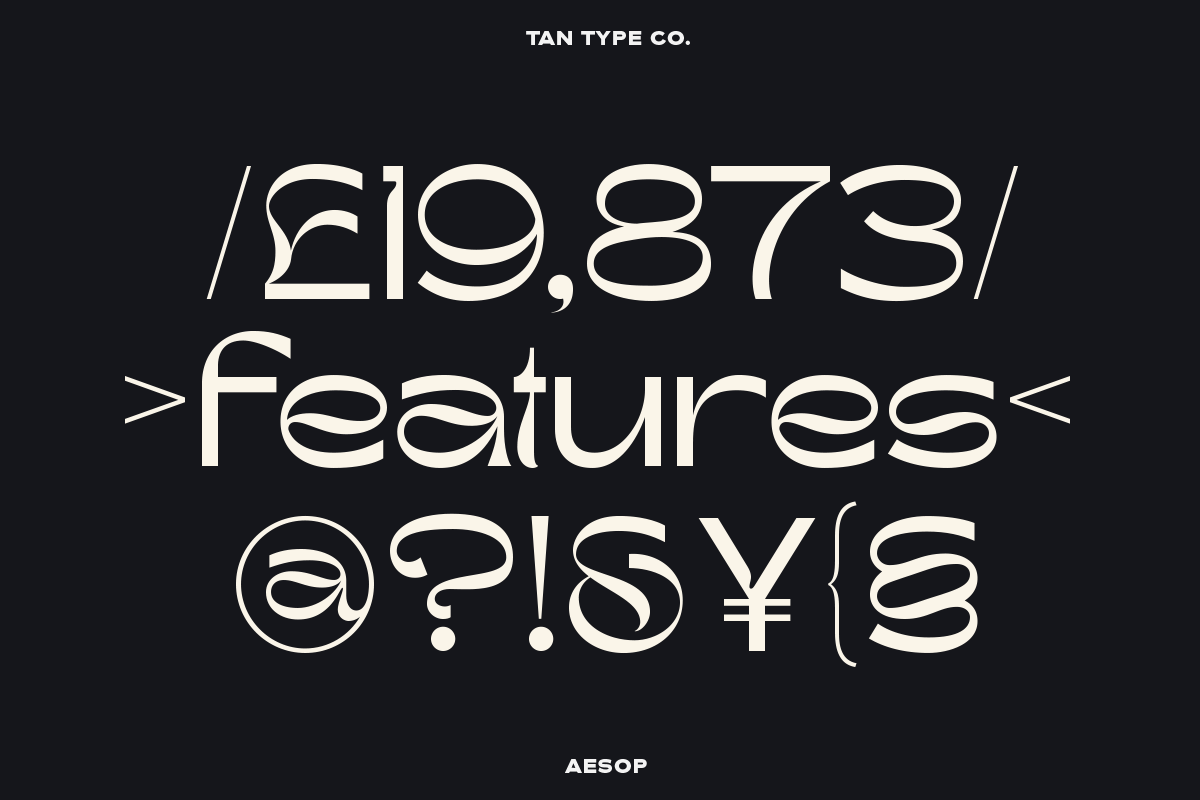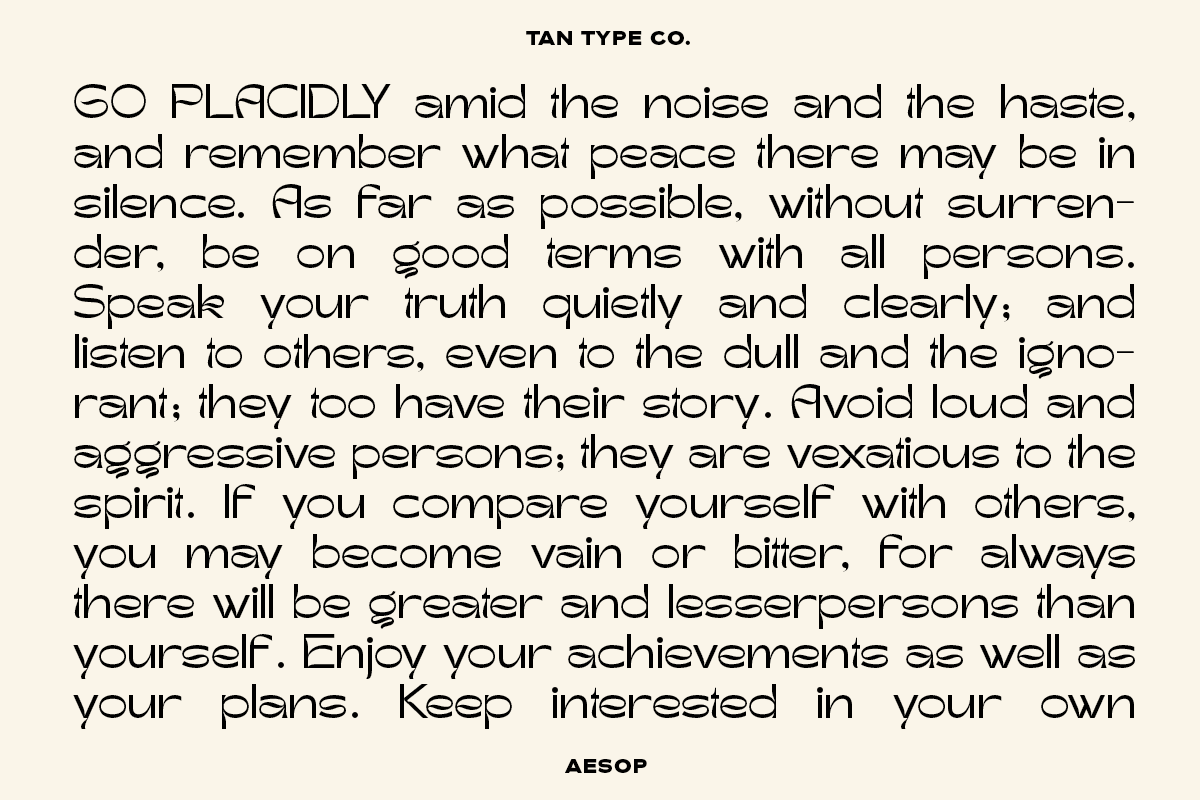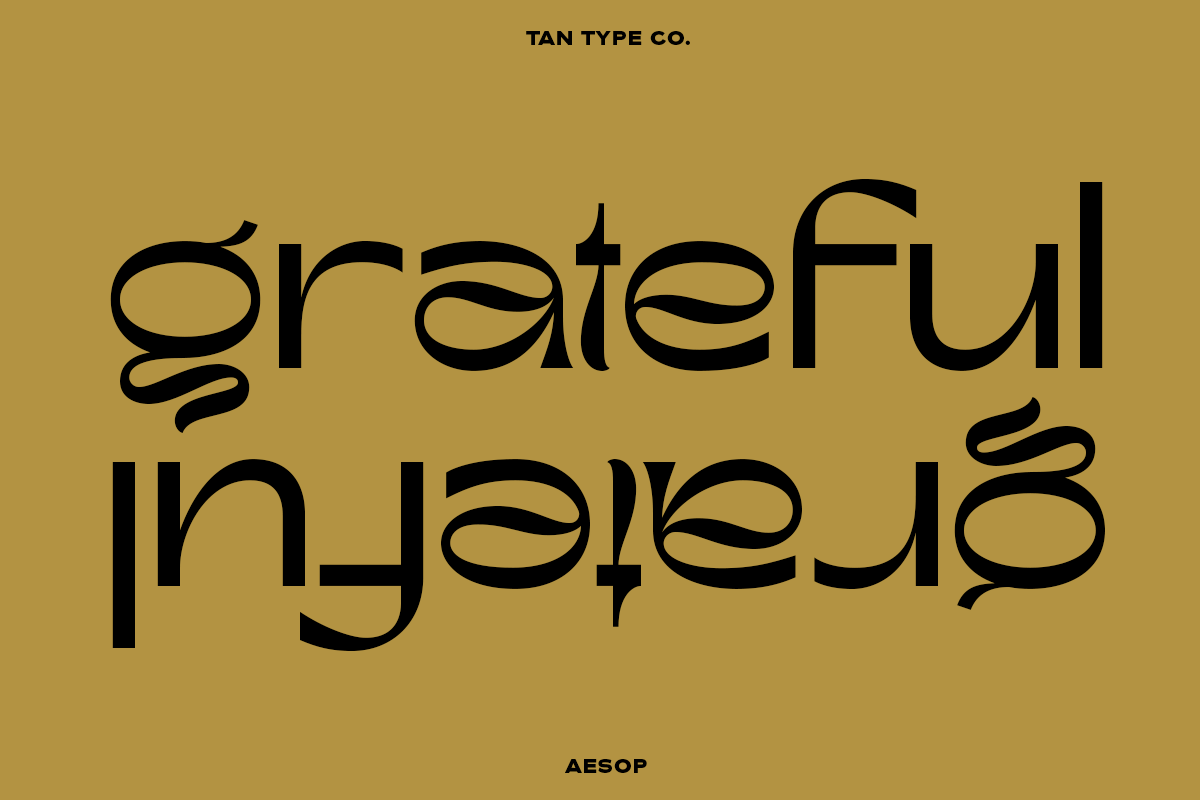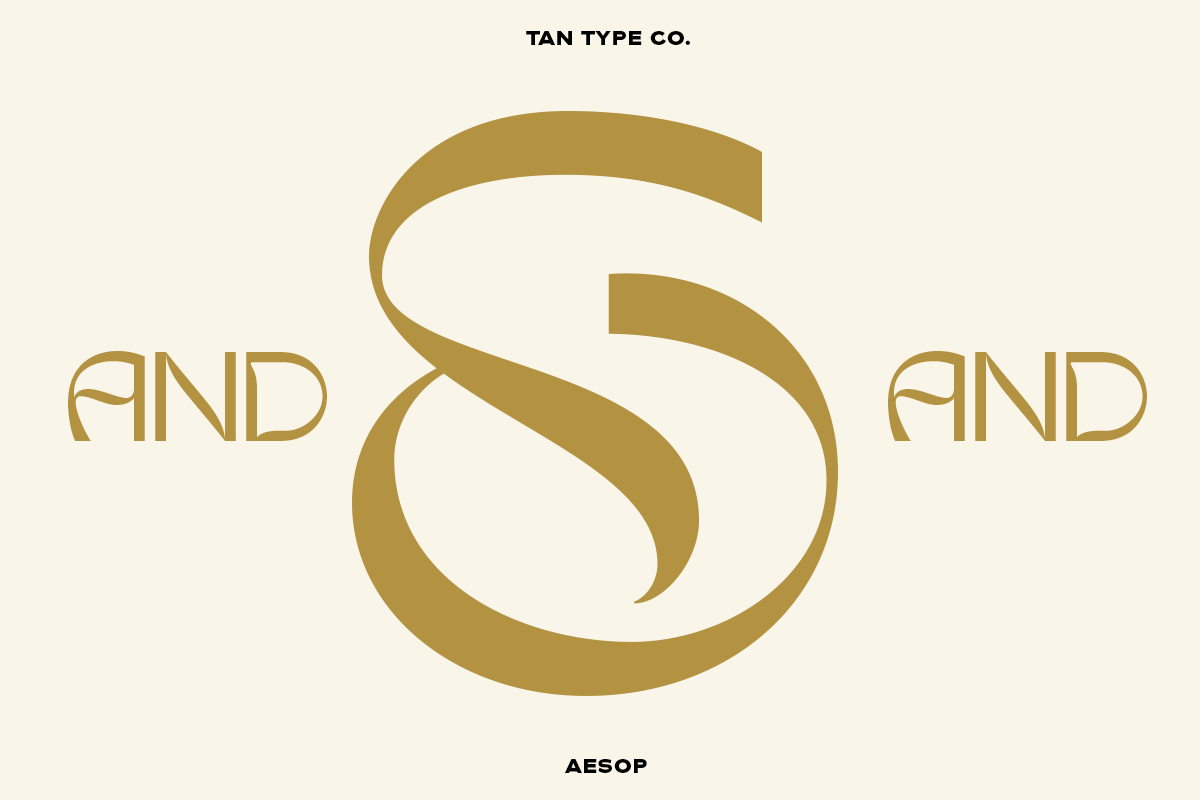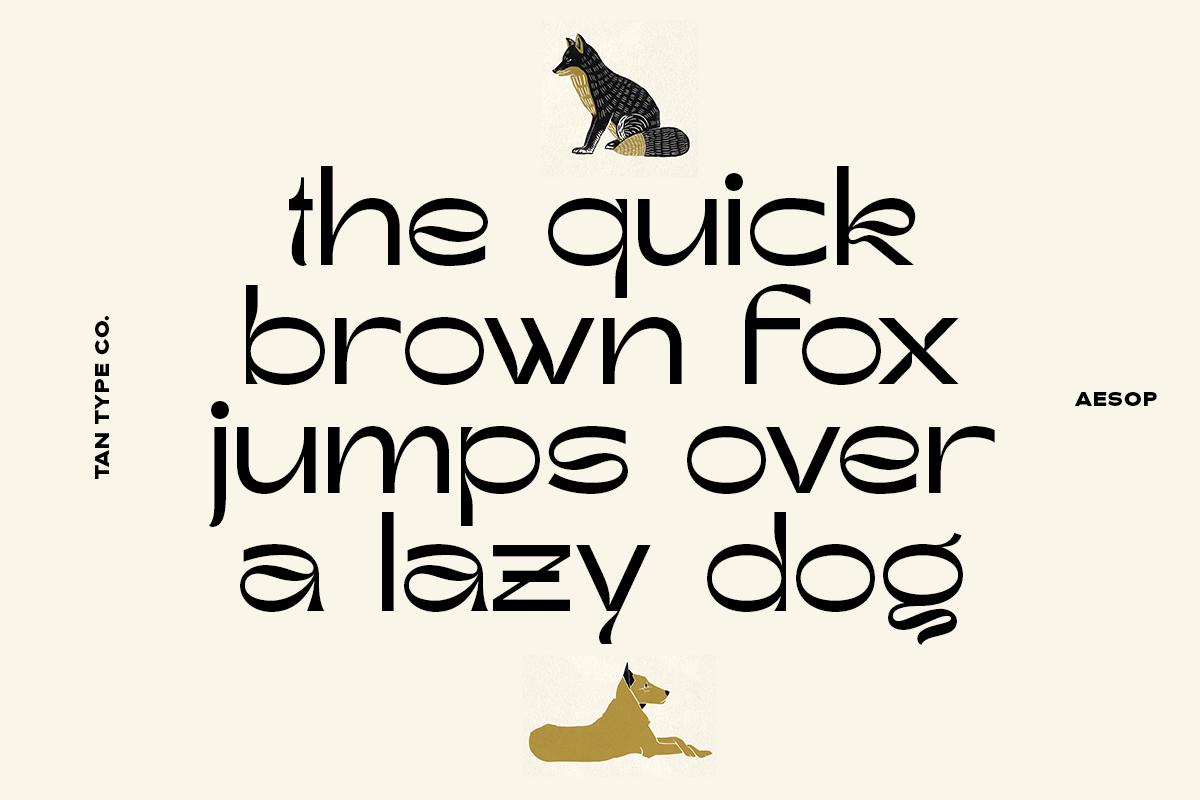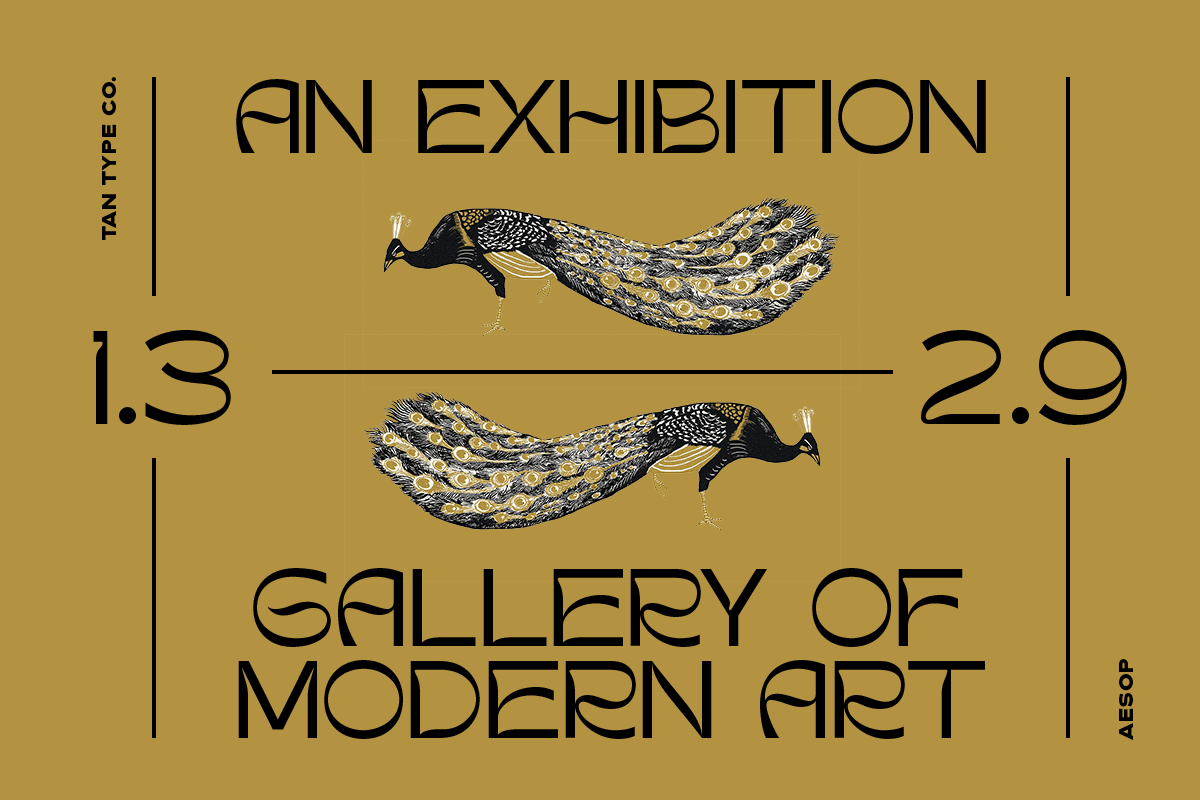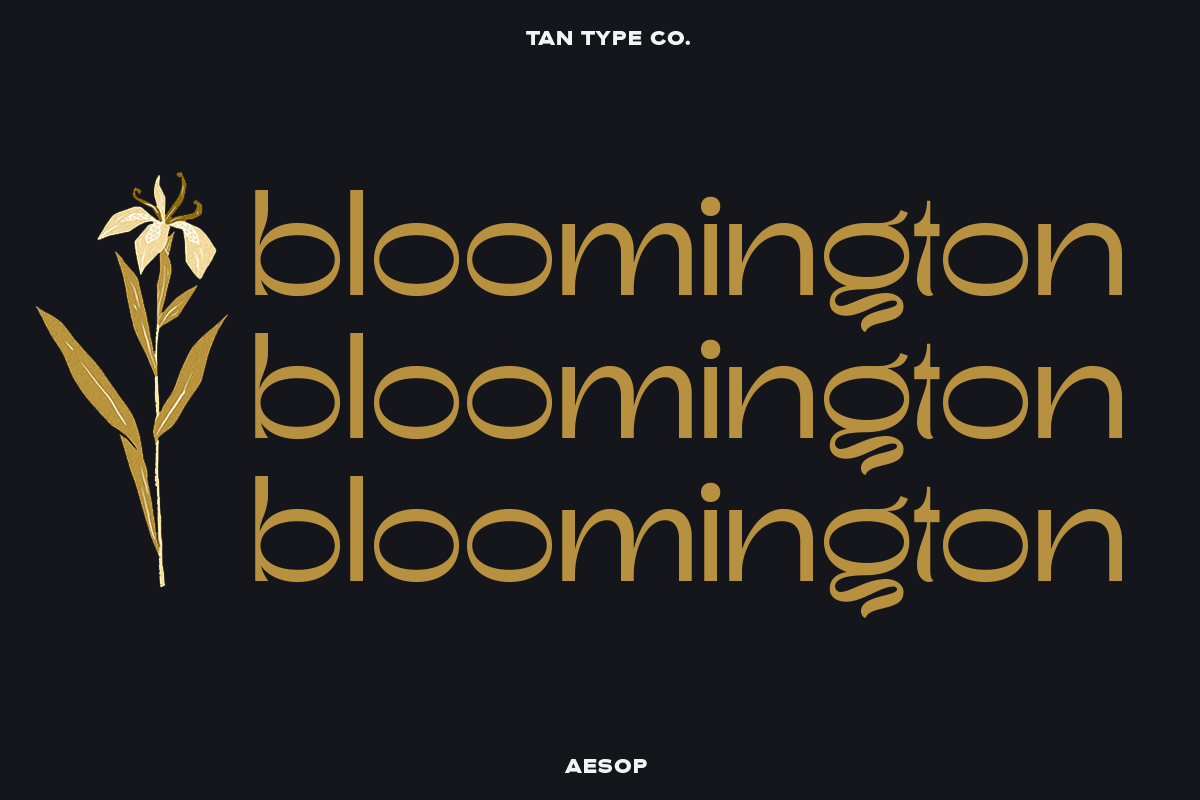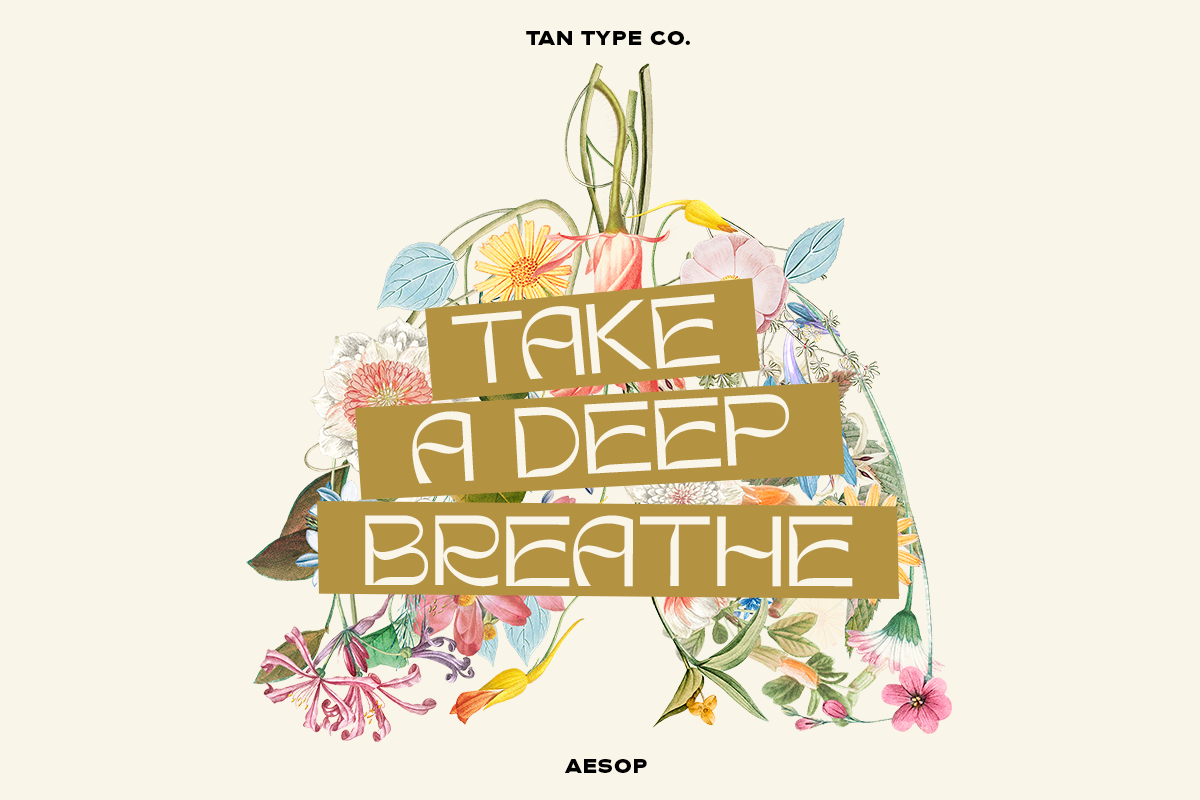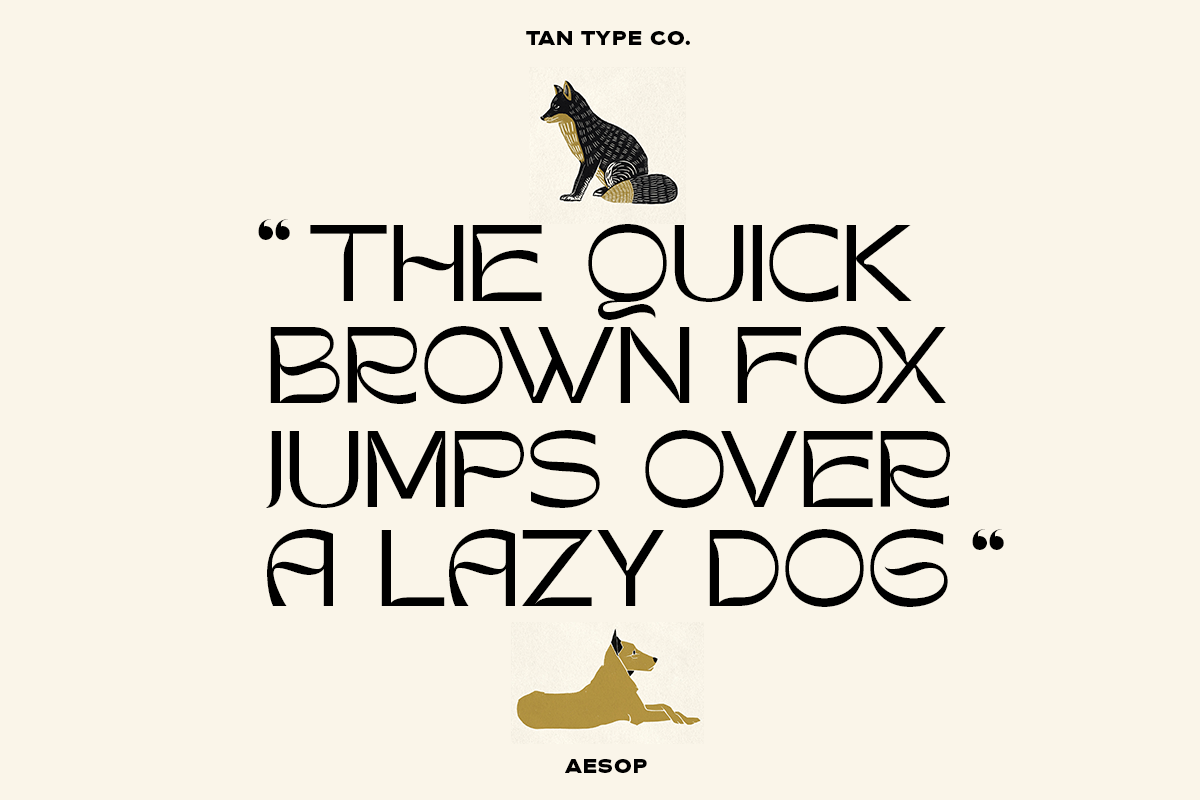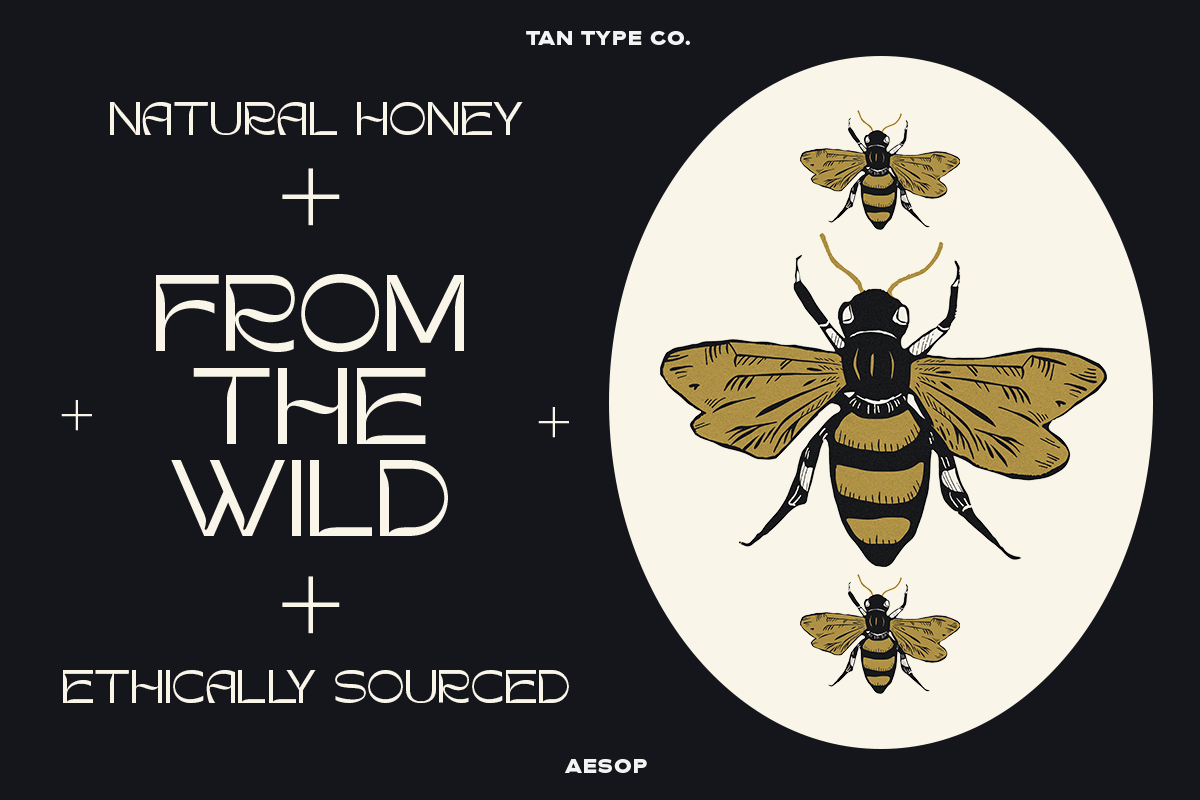
AESOP is a playful and modern display typeface with charming character and bold presence. Its smooth curves and unexpected forms blend whimsy with style, creating a visually rich and expressive typographic voice.